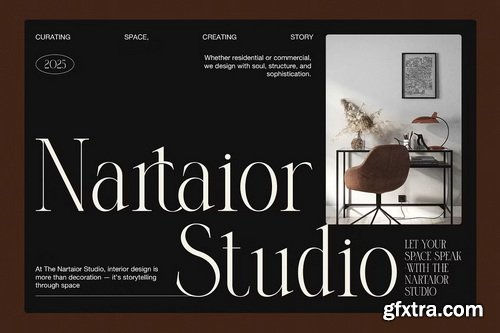
Introducing Dringko Elegant Serif Font, where modern sophistication meets timeless elegance. Designed to captivate, this beautiful serif font brings a unique charm to any project, balancing refinement with a touch of contemporary flair. Its graceful serifs and carefully crafted letterforms make it the ideal choice for creating luxury logos, high-end branding, and elegant website designs. Dringko shines in magazines, advertisements, and product packaging, where its stylish presence effortlessly enhances visual impact. Its versatility allows it to shine across a variety of creative platforms, from boutiques and fashion brands to digital content and print layouts. The font's distinct, yet readable style ensures it stands out while maintaining a polished, professional aesthetic.